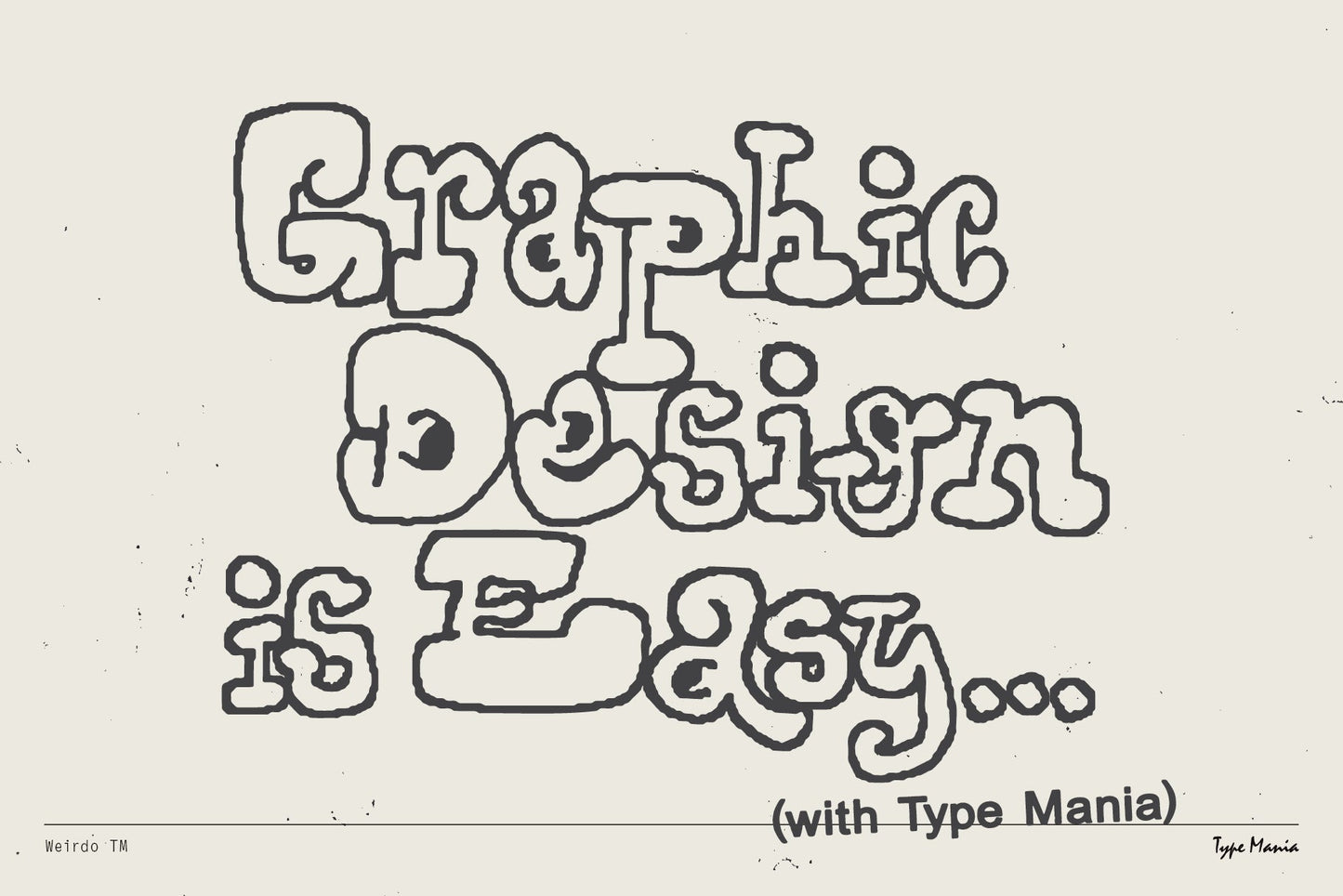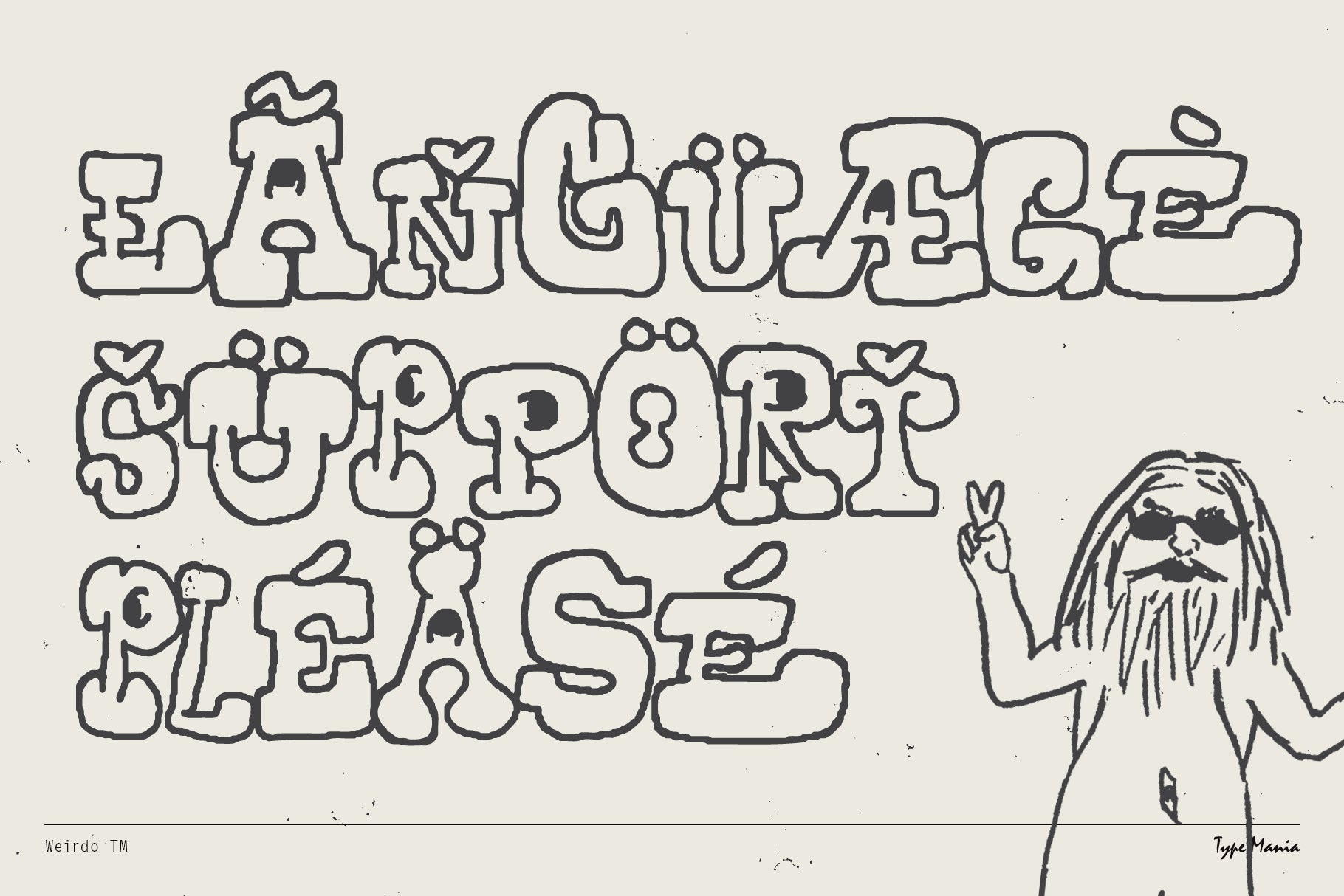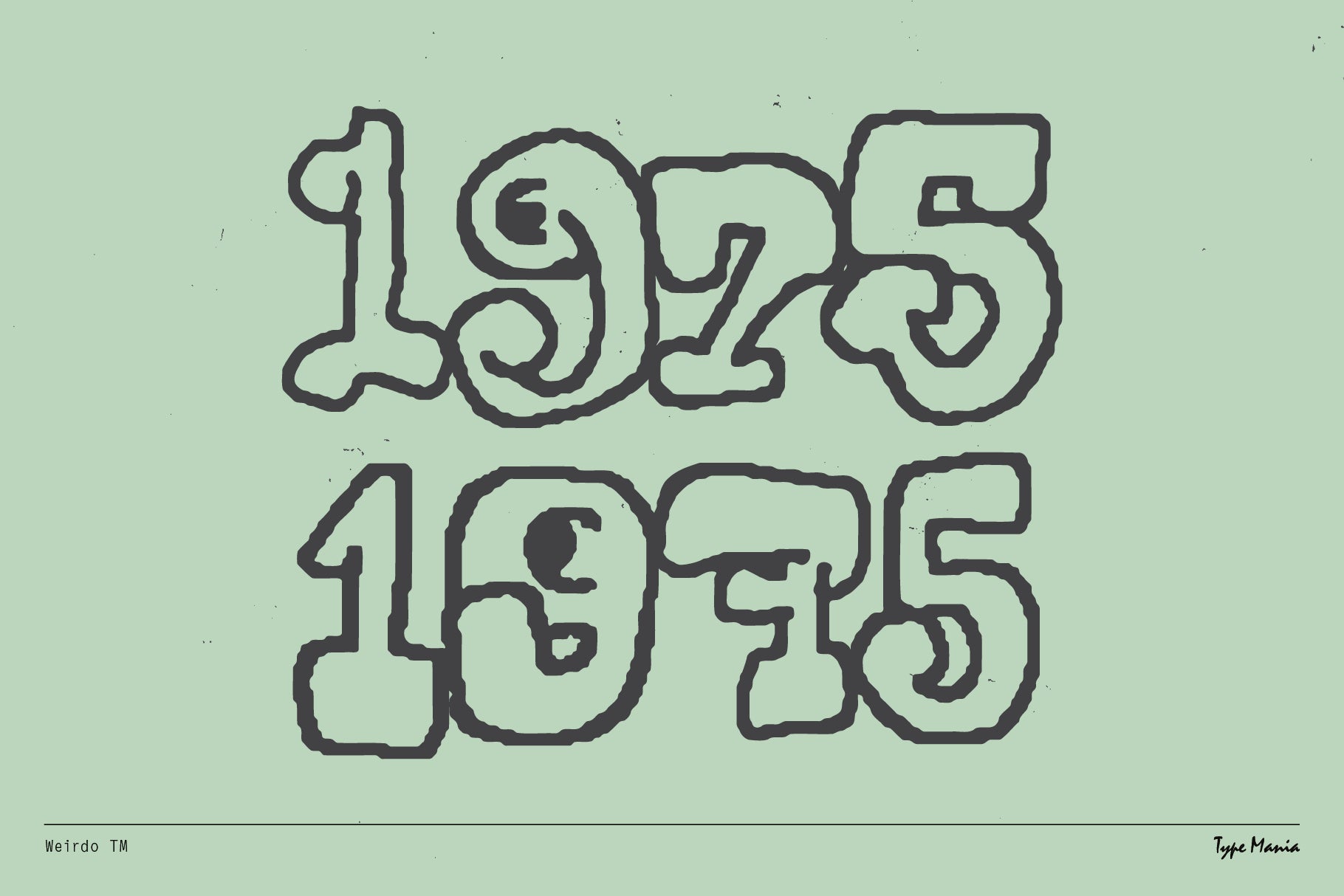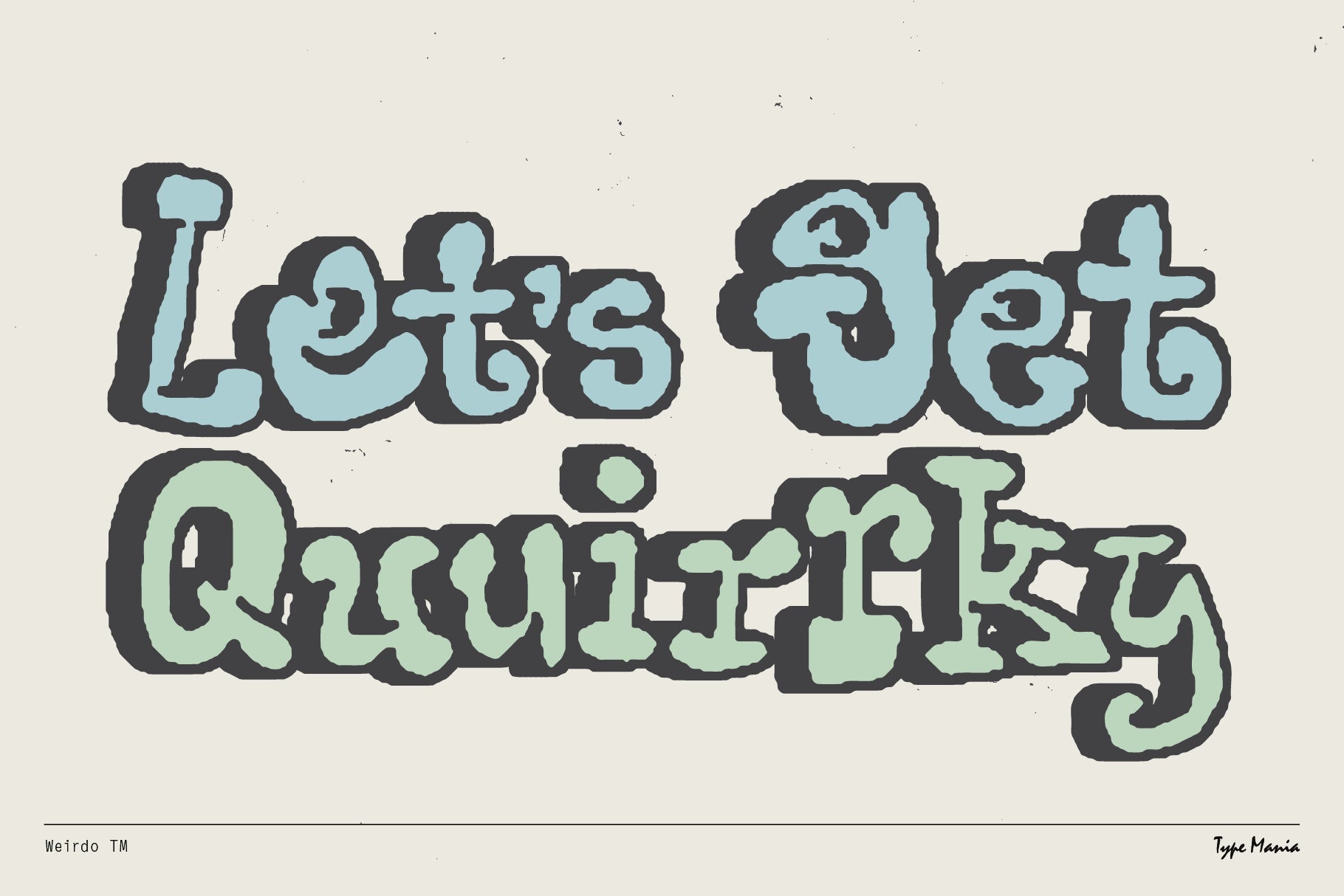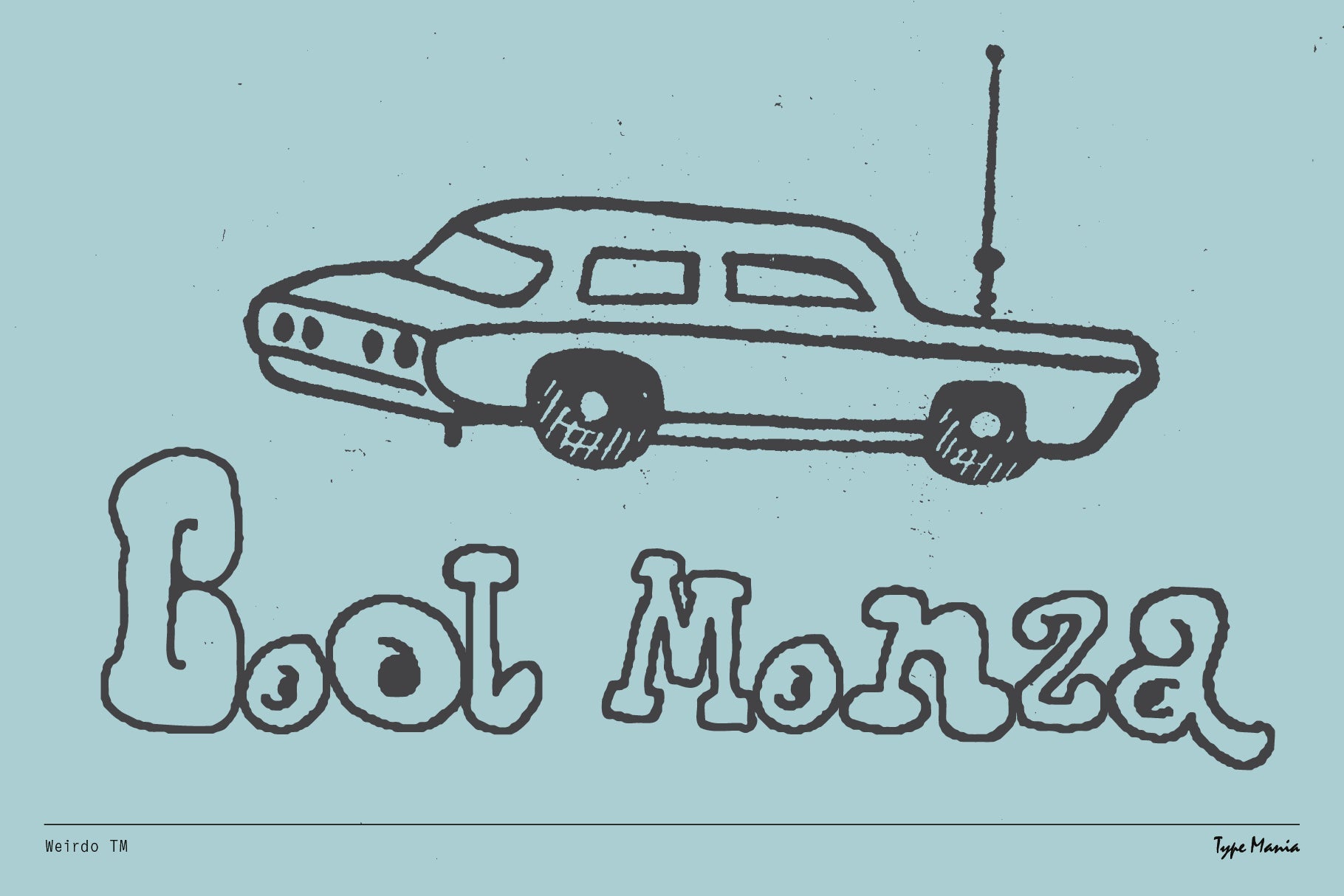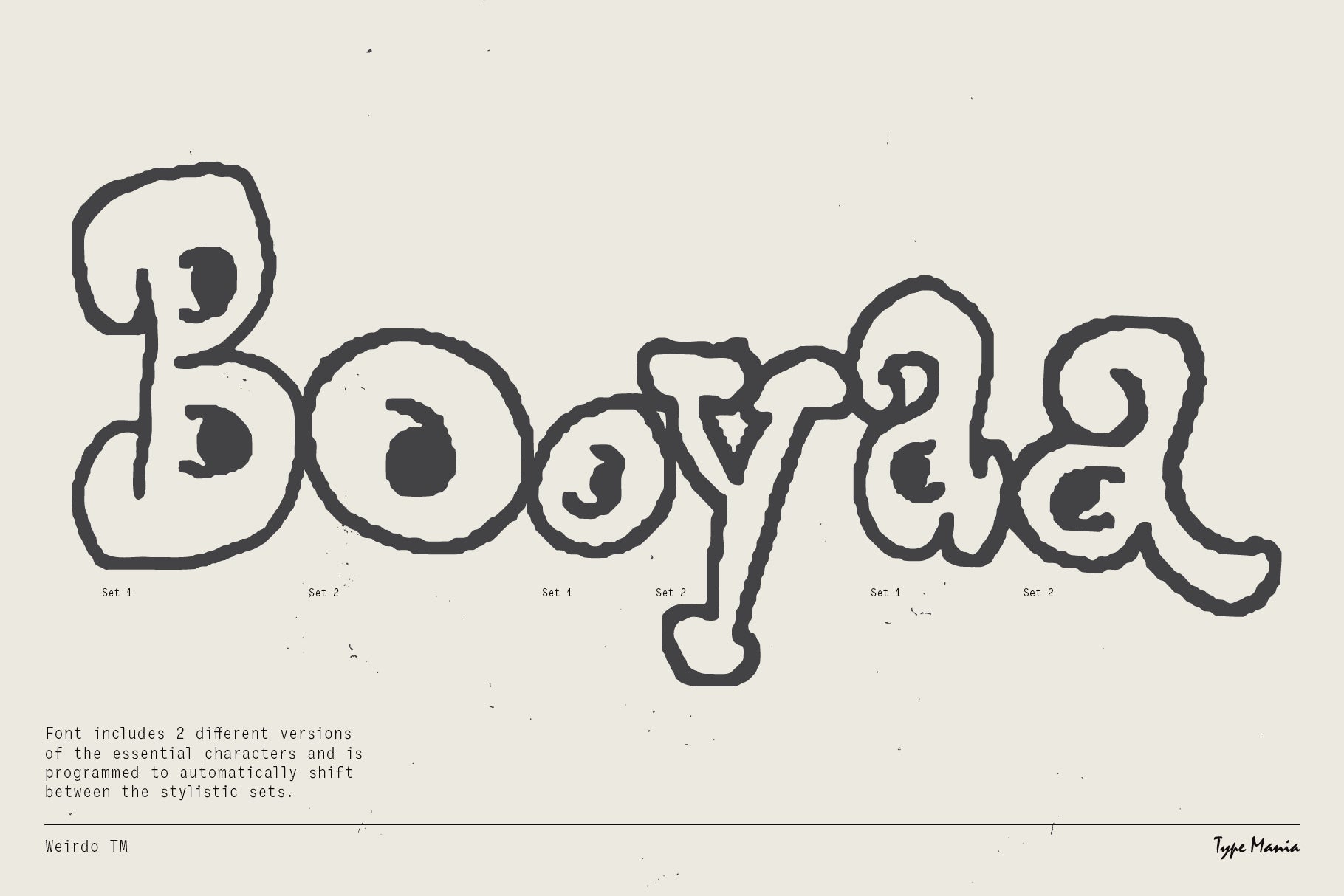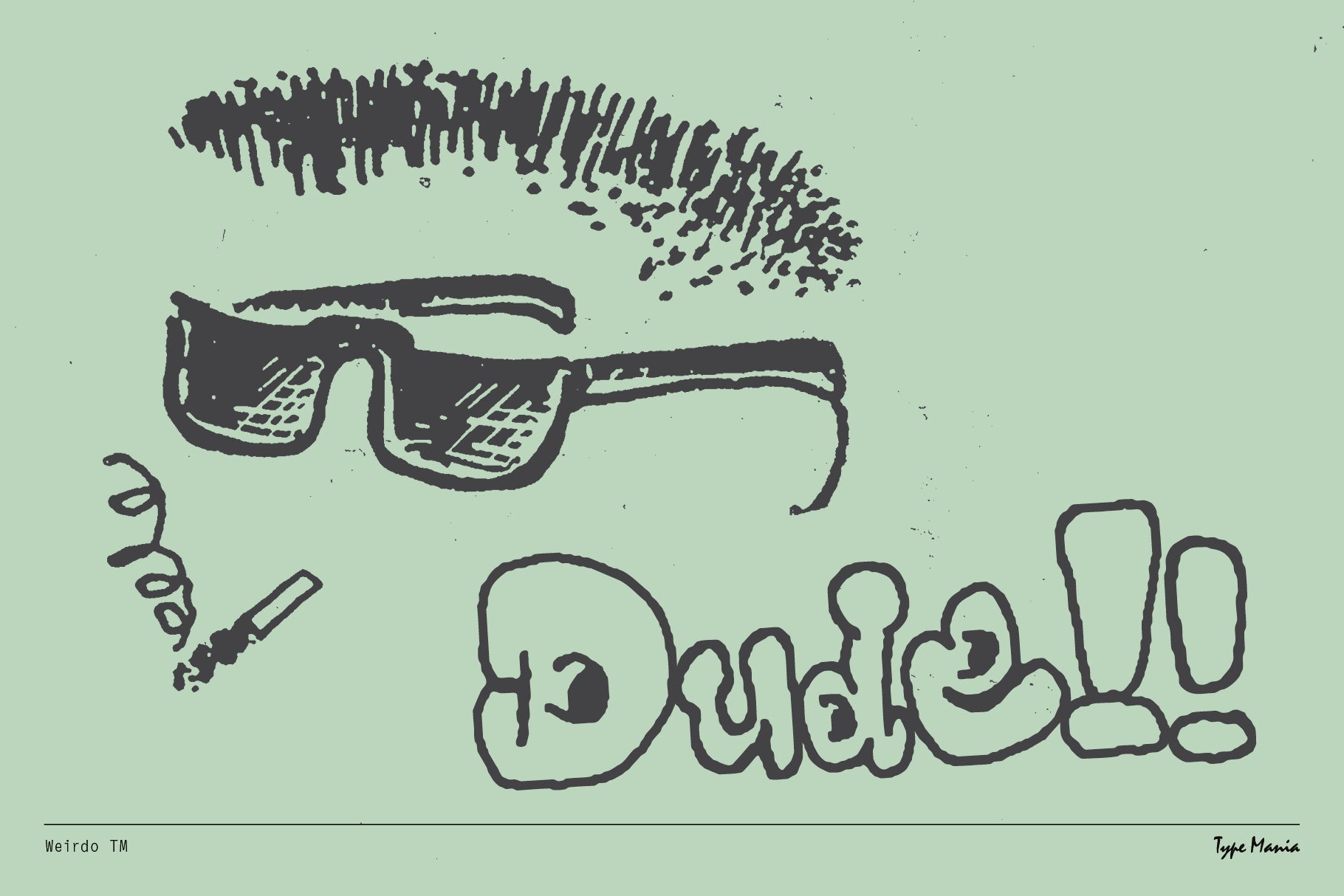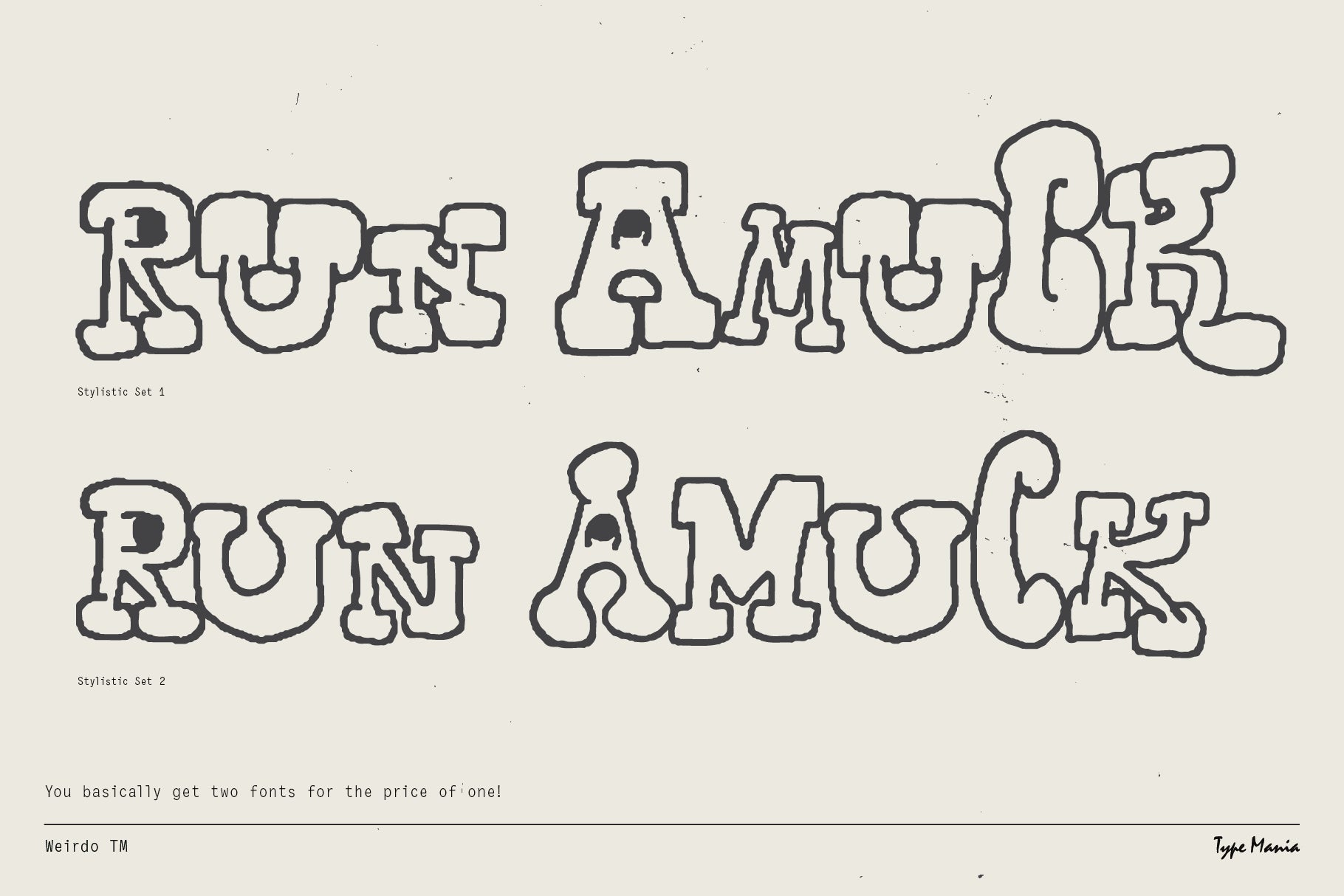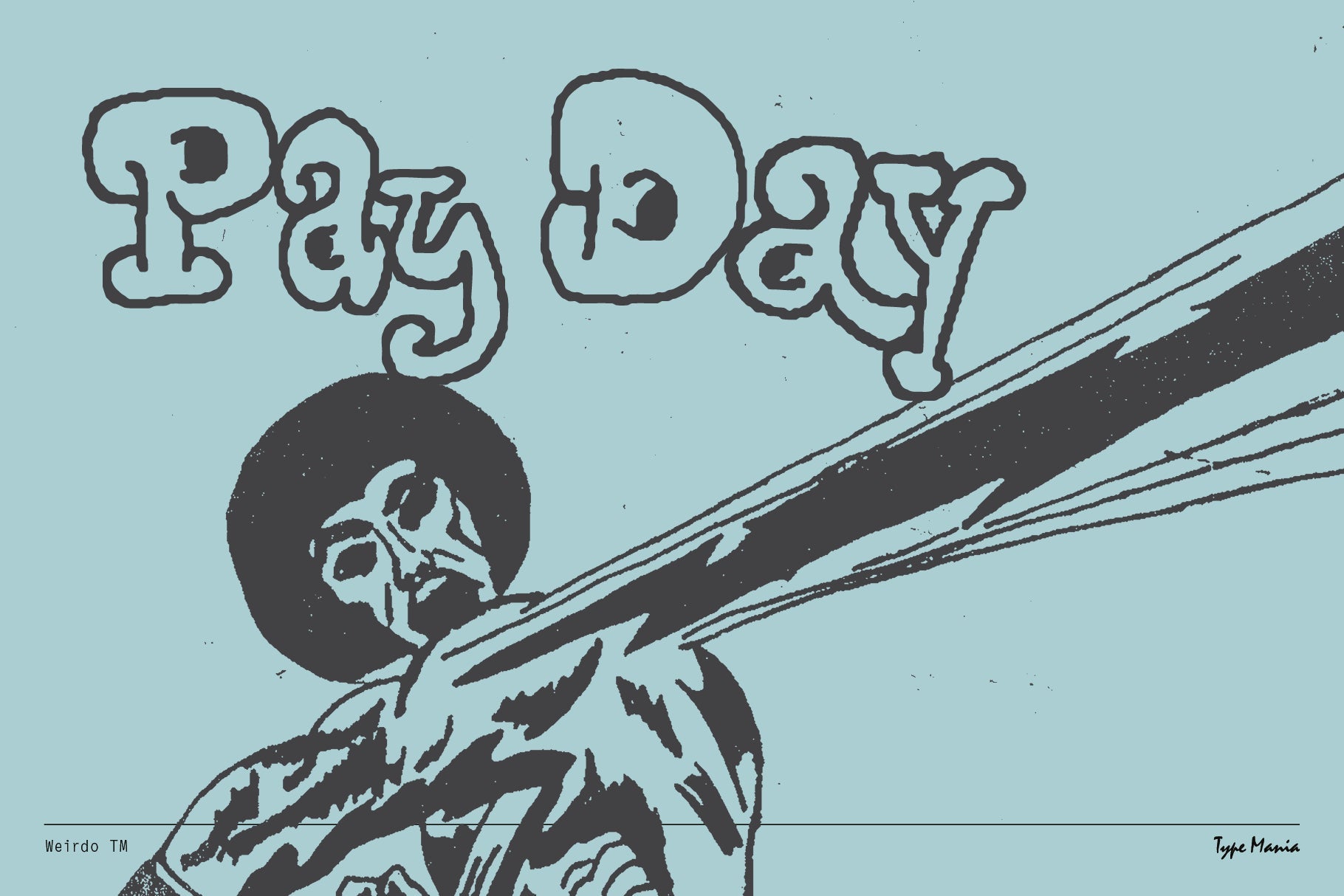
Weirdo TM
Unleash your inner fReAk with the delightfully odd Weirdo TM. Unpredictable, unconventional, and unruly – this handwritten font seasons you design with that extra sauce.
- 2 stylistic sets
- The font is programmed to automatically shift between the stylistic sets